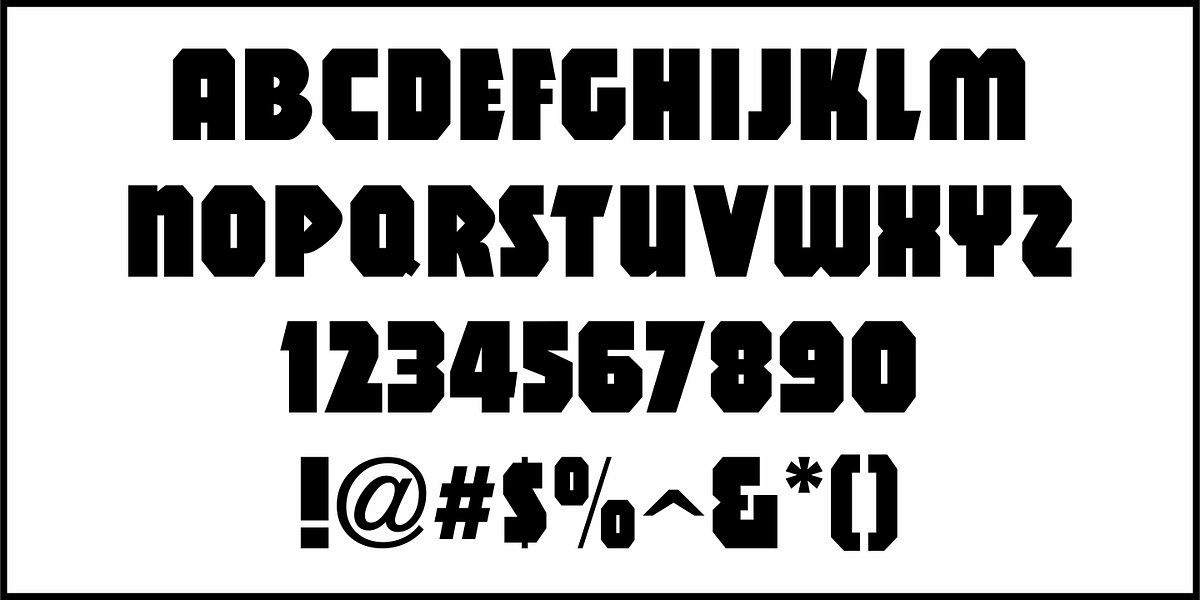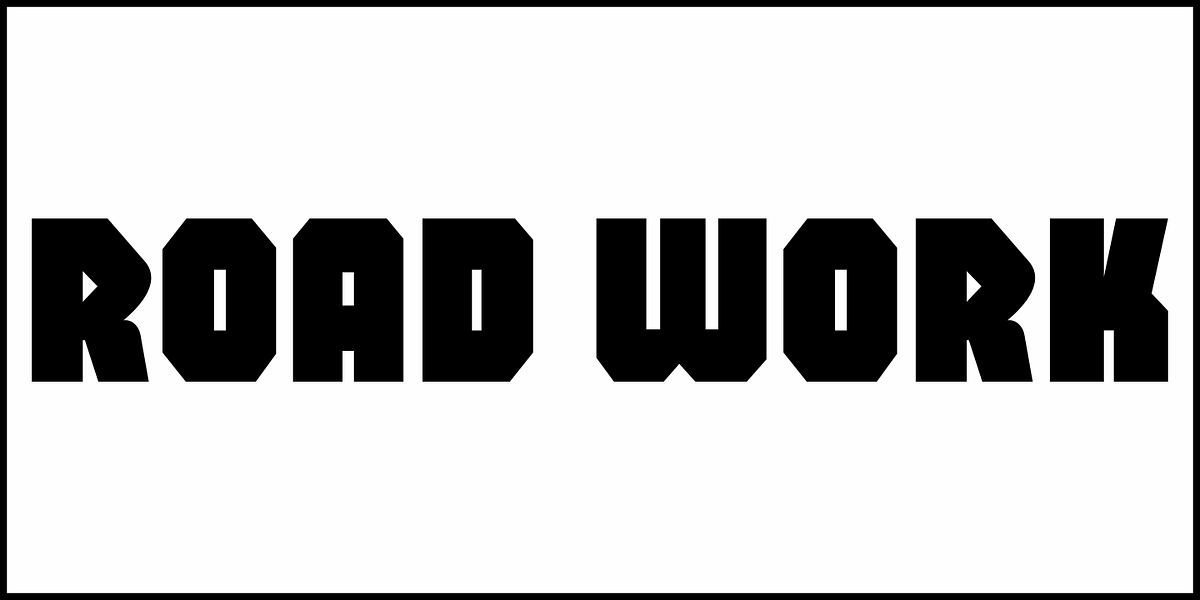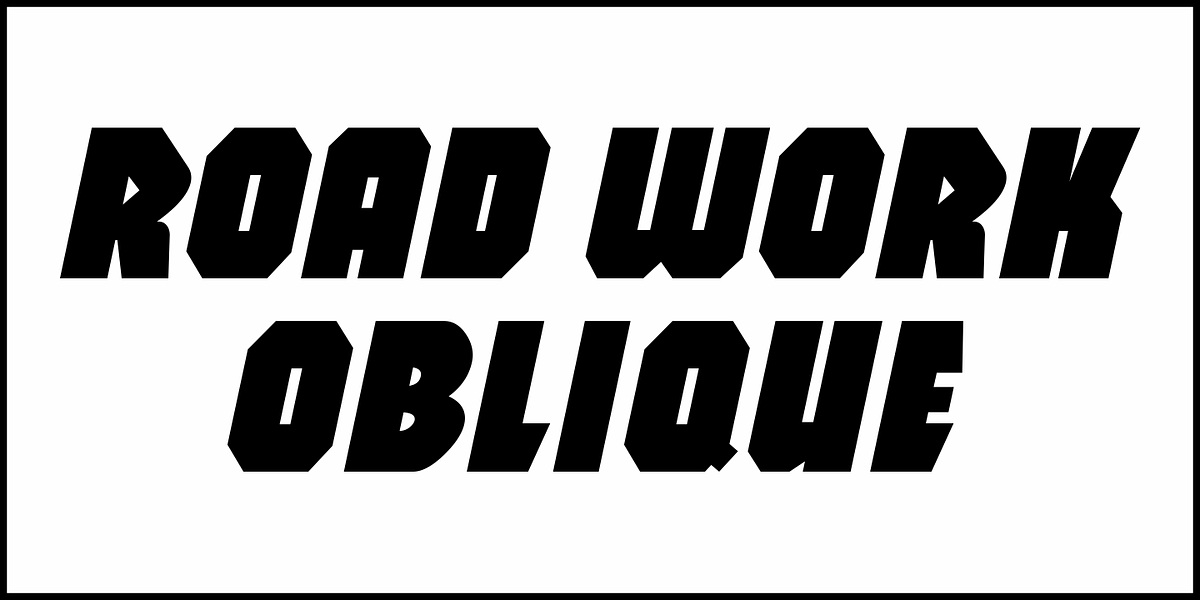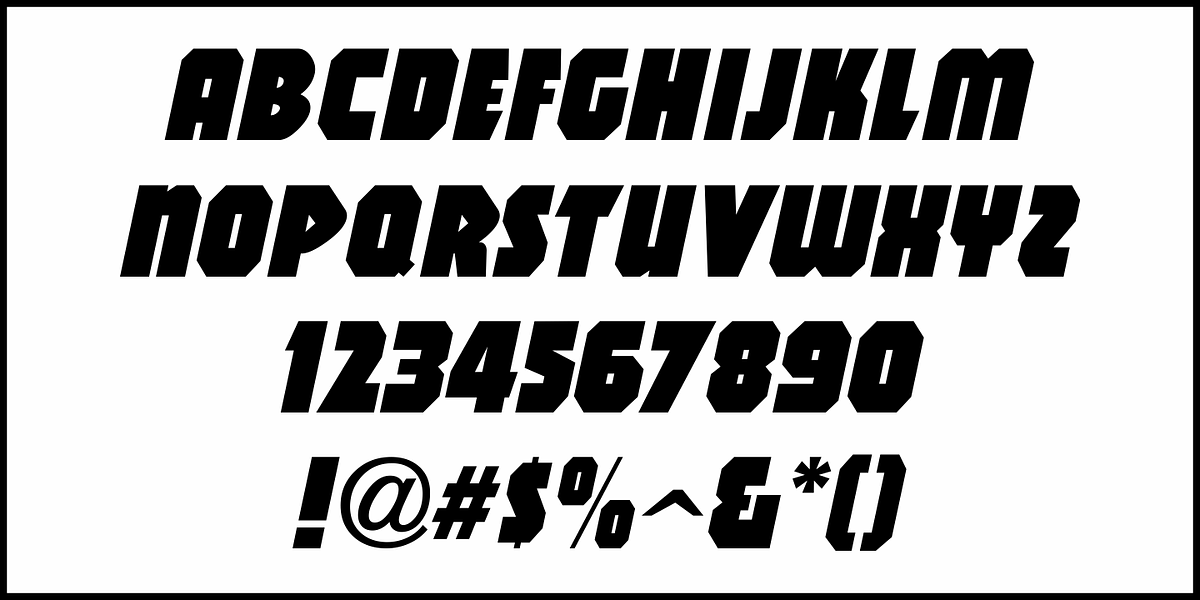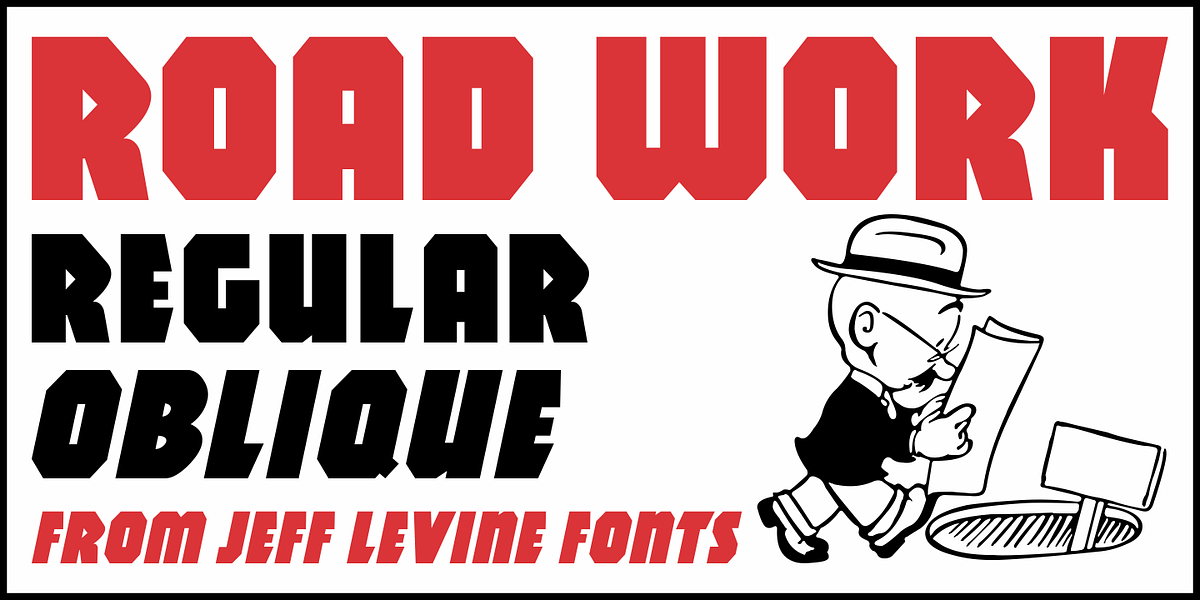
Road Work JNL
The October 5, 1935 issue of “Universal Weekly” (a publication detailing current film releases from Universal) was promoting the film “Remember Last Night”.
Hand lettering used for this advertisement was an ultra-bold sans serif design with chamfered corners and some stylized characters.
This is now available digitally as Road Work JNL in both regular and oblique versions.